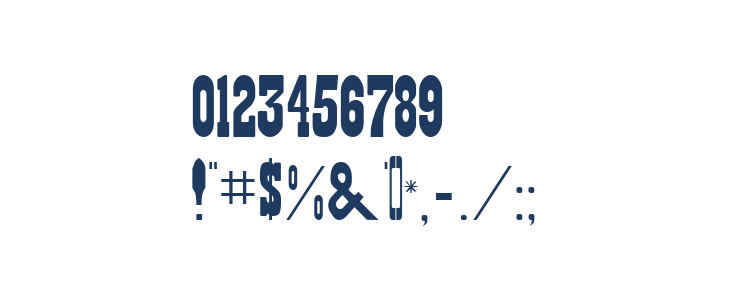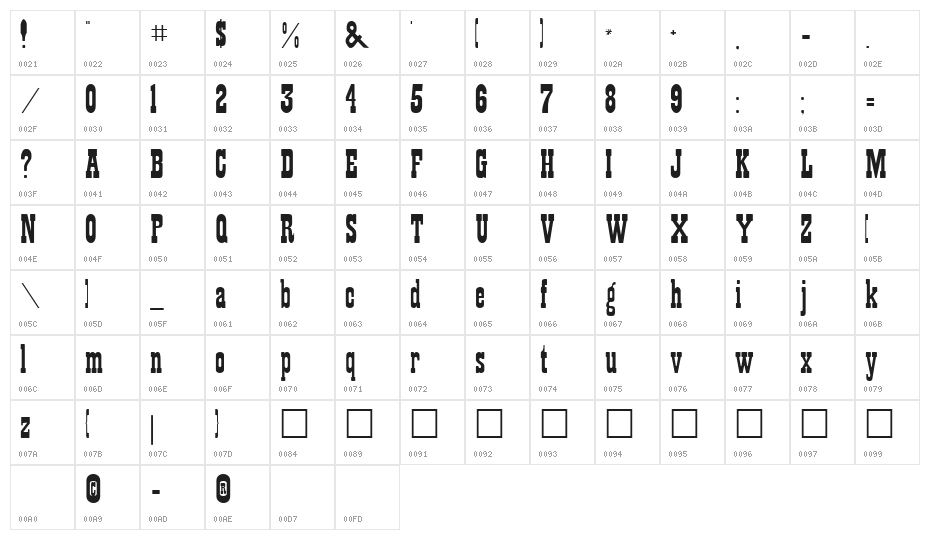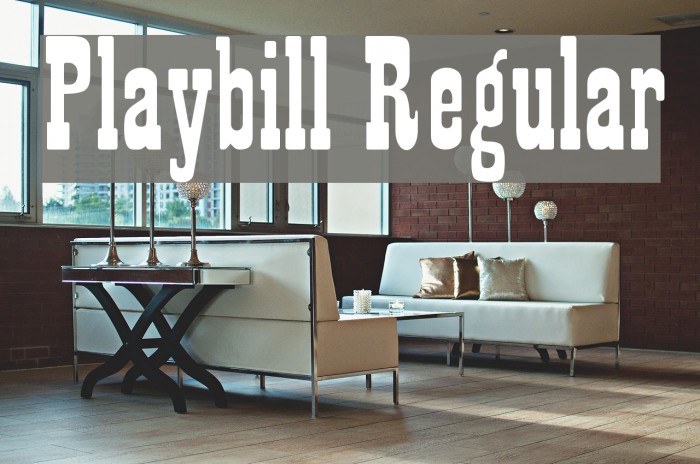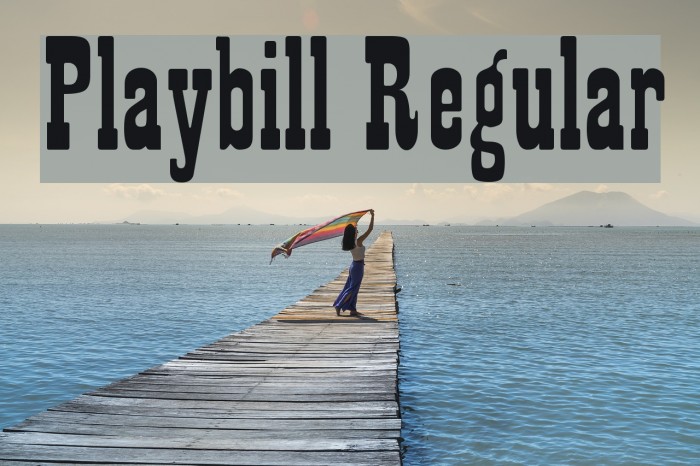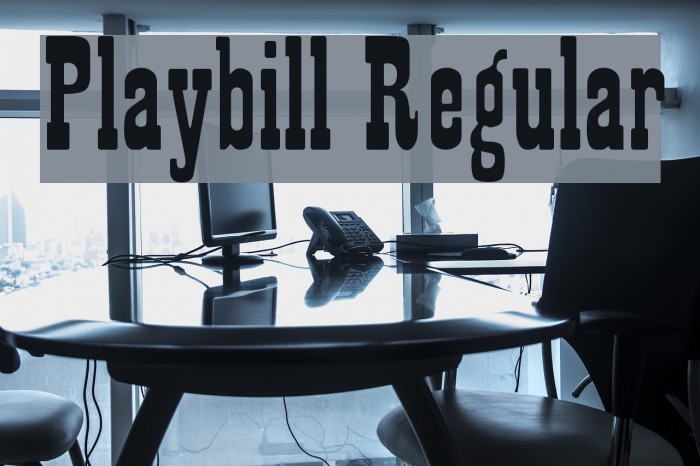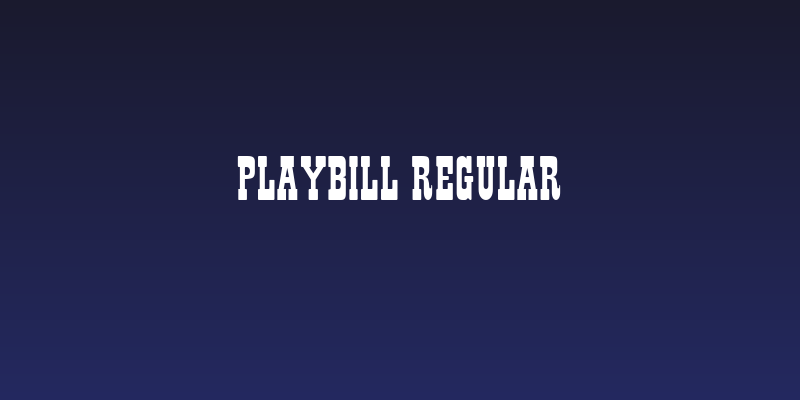
Playbill Regular Font
Playbill Regular Description
This font features a bold and theatrical style, reminiscent of classic playbill posters. The uppercase letters are robust and commanding, with a strong presence that captures attention. The lowercase letters maintain a consistent weight, offering a balanced look. Numbers are equally bold, ensuring readability and impact. The special characters are designed to complement the overall aesthetic, with a distinctive flair that adds to the font's dramatic appeal. The font's slab serif design gives it a vintage feel, suitable for projects that require a touch of nostalgia or a bold statement.
| Proposed Projects | Ideal for theatrical posters, vintage-themed designs, book covers, and branding that requires a strong, bold statement. |